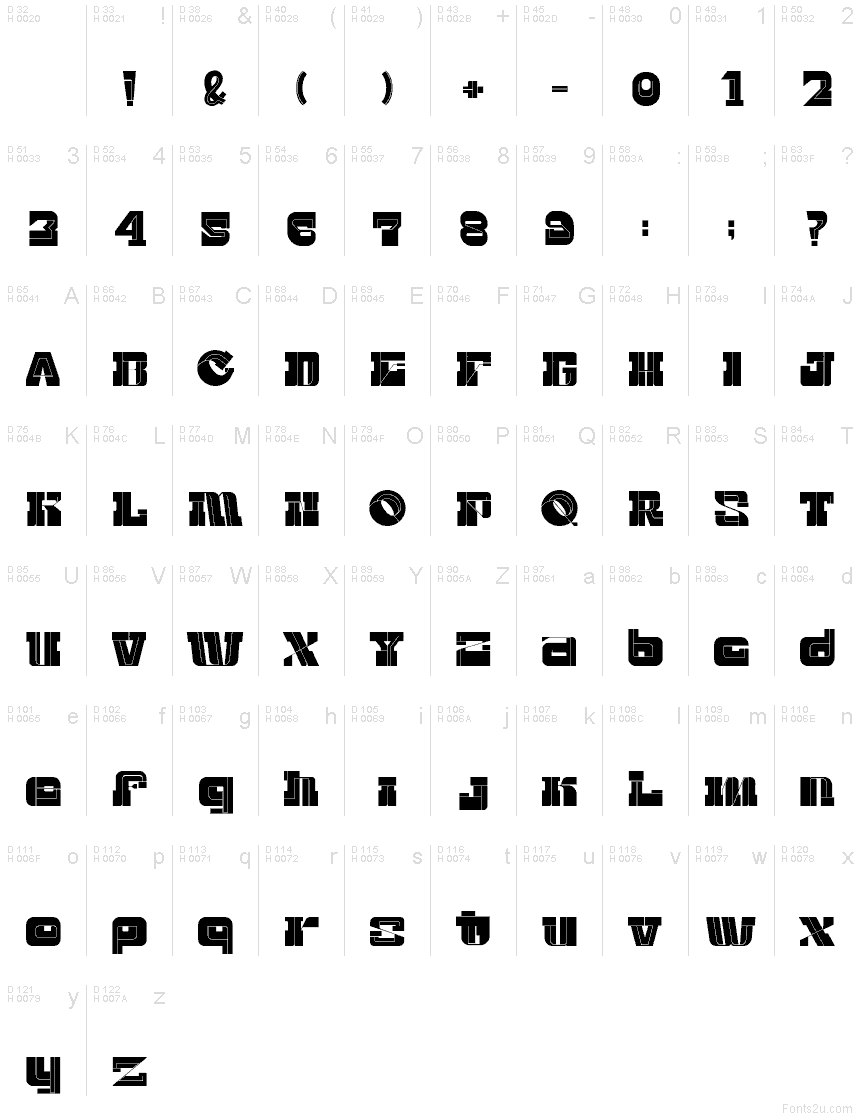
Crypto
Crypto font by Creatype Studio is a free bold futuristic techno display font. Built from chunky, modular shapes, it stands out with carved-in lanes and squared curves that feel machined rather than drawn. Tight apertures, beveled cuts, and parallel vertical stripes create a high-contrast rhythm that reads loud and clean at a glance—like circuitry frozen mid-pulse.
Using Crypto, headlines snap with a crisp, sci‑fi edge that shines on game logos, esports branding, blockchain or fintech visuals, tech event posters, app splash screens, and gadget packaging. This free font handles big sizes beautifully; keep tracking modest to amplify its grid-cut energy. Pair with a light geometric sans for body copy to let Crypto’s industrial blocks take center stage.